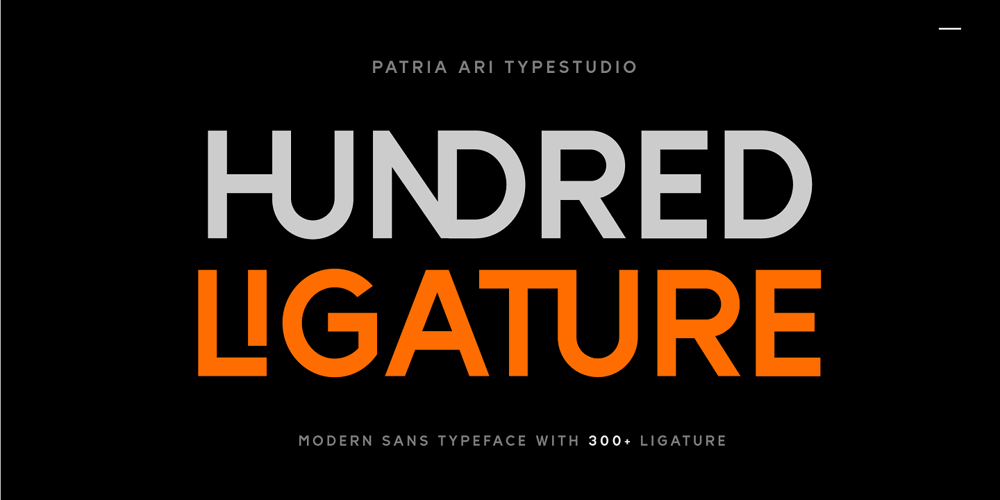
Hundred Ligature
Hundred Ligature font
Hundred Ligature Font Family was designed by Patria Ari Wijonarko and published by Patria Ari. Hundred Ligature contains 1 styles and family package options. Introducing – Hundred Ligatture, a modern sans logo font with more than 300 discretionary ligatures ready to be combined. Hundred Ligatture is suitable for headlines of all sizes, editorial design, branding, packaging, web and broadcast use, etc.This font designed with modern forms, so each individual character is quickly and easily recognized. Such distinctness makes it good for signage and display work.